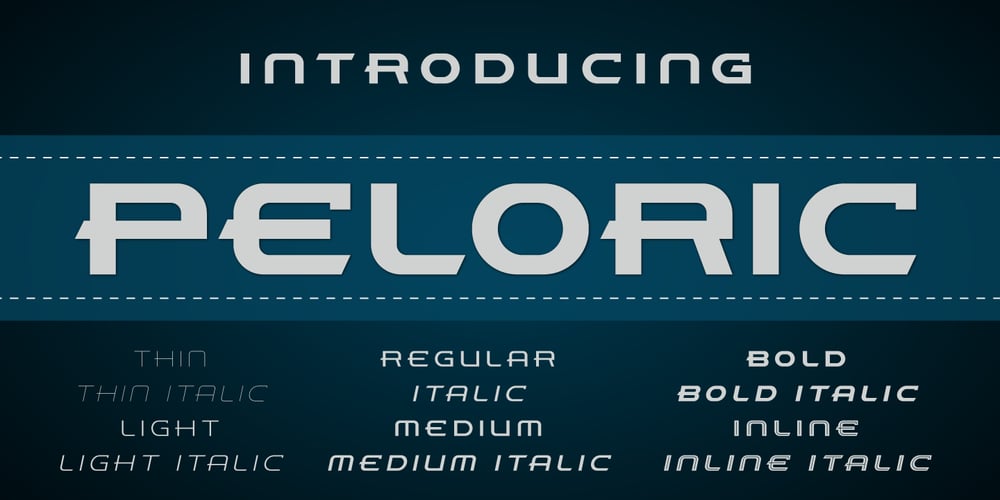
Peloric Font Family was designed by Tanveer Qureshi and published by TanveerType. Peloric contains 12 styles and family package options. Introducing fresh PELORIC sans serif typeface which is well crafted for the classic and modern outlook. It can be read easily from a small size to a large size. Feeling fresh & trendy with it’s distinctive visual. It is well suited for branding, website & mobile layout and many more. It can also be used for branding materials, business cards, social media, packaging, prints, quotes & posters, etc. It comes up with 12 different weights as thin, thin italic, light, light italic, regular, italic, medium, medium italic, bold, bold italic, inline & inline italic. So, if you are looking for a new stylish and unique font, then here is the best font just designed for you and supporting any operating system and platform.